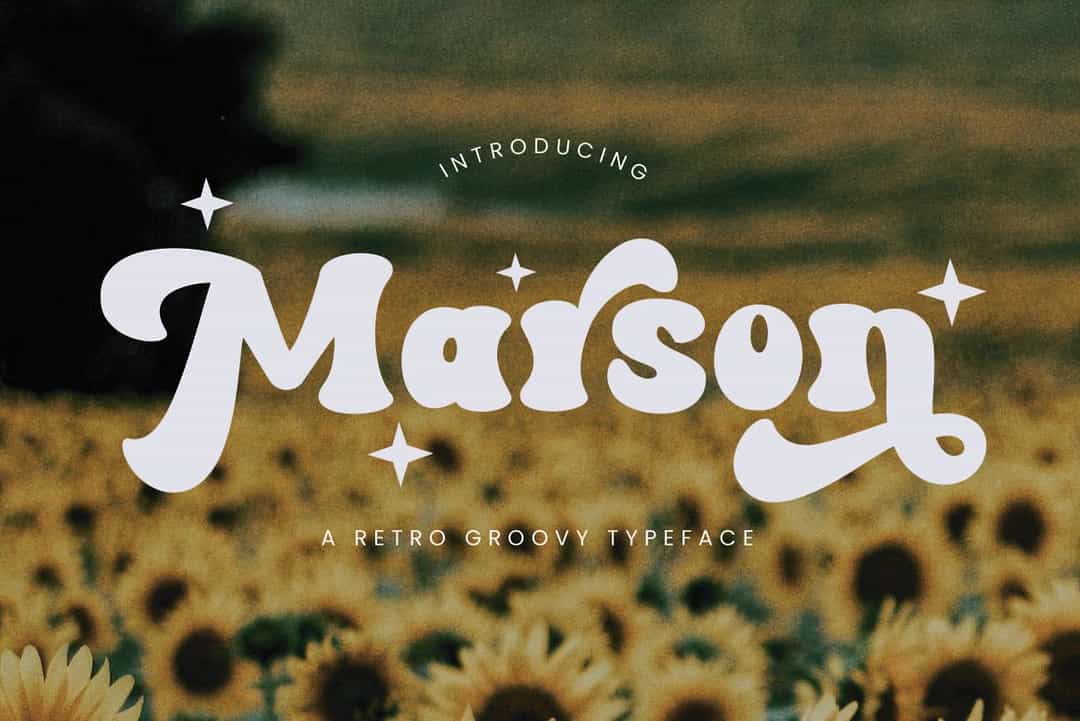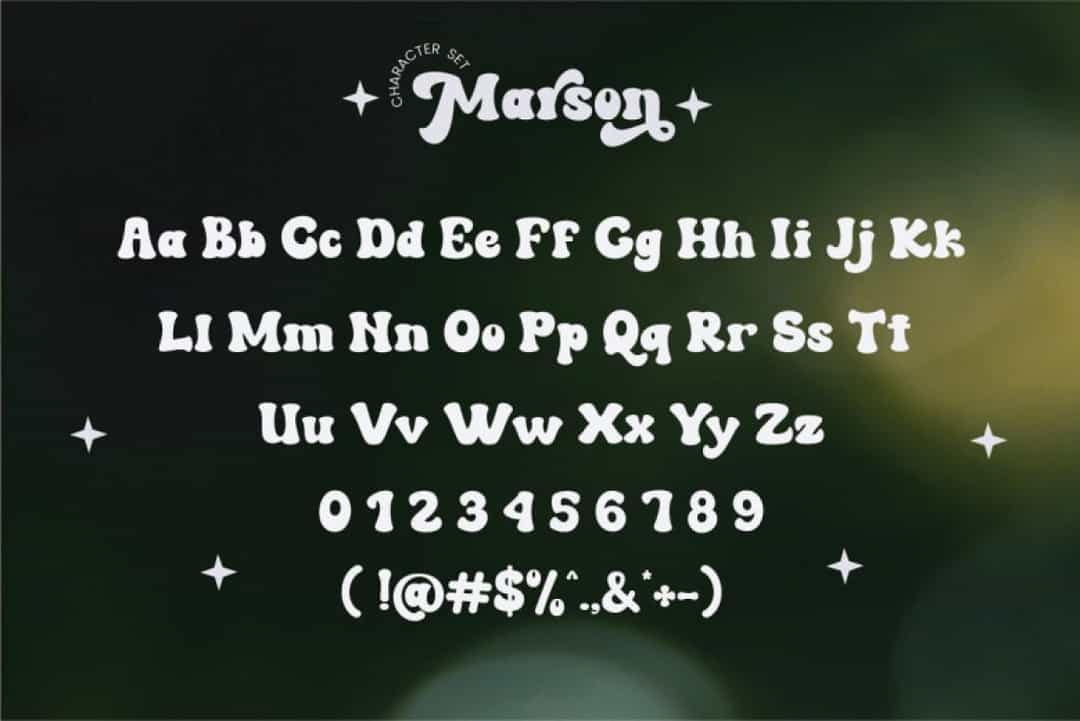
Introduce “Marson”, A Groovy Retro Font. Explore the nostalgic charm of yesteryear with Marson, an alluring retro font designed to transport you back in time. Featuring clean forms, refined curves, and an aesthetic reminiscent of 1970s design elements reminiscent of its period, Marson adds an authentic vintage style into any design project.